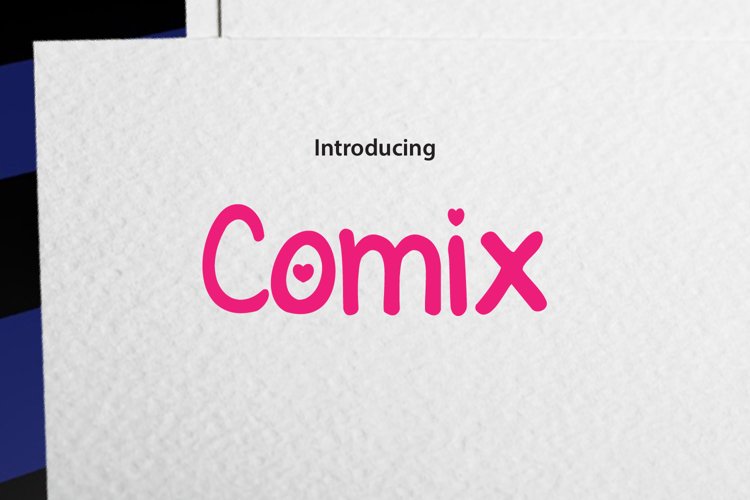
Comixs Typeface is Clean, simple, freehand. this typeface inspired by kids
storybook. Can be use for quotes, title, and also body text. This
typeface add more fun in reading a book with this easy-to-read &
playful characters.
Comixs Regular, Comixs Italic, Comixs Romantic Regular, Comixs Romatic Italic,
“and added a touch of romantic theme by adding a heart symbol”
Comixs Romantic Regular, Comixs Romantic Italic.